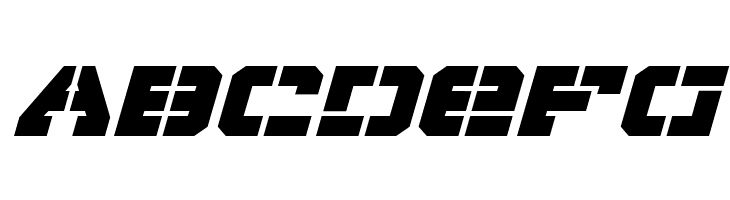
Neuralnomicon Semi-Italic Font
- Font: Neuralnomicon Semi-Italic
- Weight: Semi-Italic
A bold, expanded, and italic font with a futuristic, angular design.